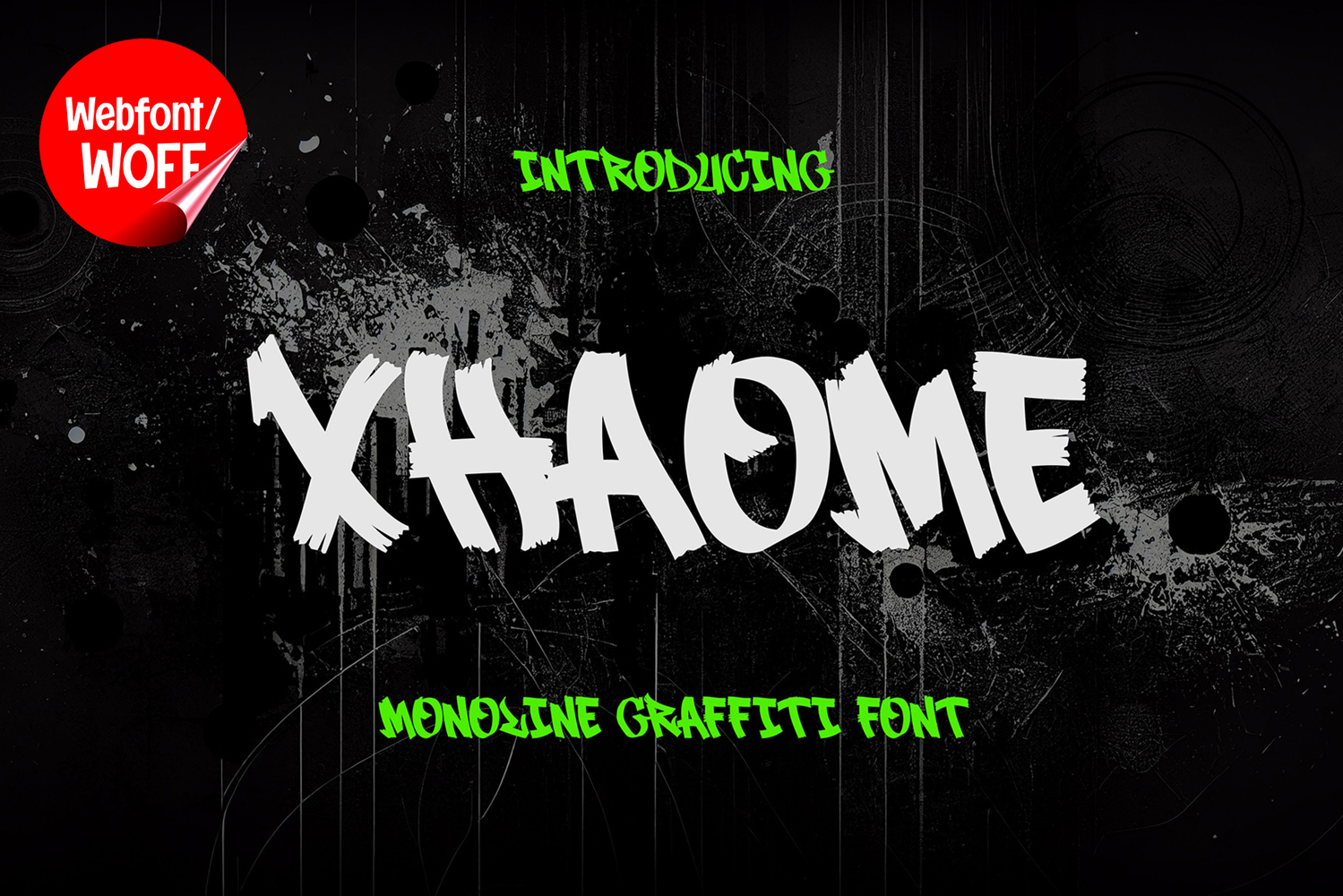
Xhaome | Hand Brush Graffiti Webfont for Urban Websites
Xhaome is a hand brush graffiti webfont designed to bring bold strokes and expressive urban energy into modern website design. Inspired by hand-painted graffiti and brush lettering, this font features dynamic strokes with natural variations that create a raw and artistic visual impact. It is an ideal choice for projects that require a strong, creative, and street-inspired typographic style.
Xhaome features a complete set of uppercase characters designed with bold brush strokes and natural flow. Each letter reflects the movement of a brush, creating an organic and energetic appearance. These expressive forms are perfect for headlines, banners, hero sections, and featured content where strong visual impact is needed. The brush style adds texture and depth, making designs feel more dynamic and engaging.
In addition to letters, the font includes numbers and punctuation, allowing for flexible usage across various parts of a website. It works well for promotional content, event details, pricing displays, and navigation highlights. Each character maintains a consistent brush graffiti style, ensuring a cohesive and unified design throughout the layout.
With multilingual support, Xhaome includes a wide range of accented characters, making it suitable for international websites and global audiences. This allows content to be displayed clearly across different languages while preserving the expressive brush aesthetic.
The hand brush graffiti style of Xhaome makes it especially suitable for urban-themed websites, streetwear brands, music platforms, event promotions, and creative portfolios. Its bold and textured strokes create a strong visual identity that stands out in modern digital spaces. The natural brush movement adds a sense of authenticity and artistic expression.
Despite its expressive and textured design, Xhaome is built with readability in mind. The spacing and proportions are carefully balanced to ensure clarity, especially in display sizes. This makes it effective for impactful headings and short text elements where both style and legibility are important.
Xhaome is a webfont that blends hand brush artistry with modern digital functionality. Its bold strokes, organic shapes, and graffiti-inspired style create a distinctive typographic presence that enhances website design. For projects that require a strong artistic feel with urban influence, Xhaome provides a powerful and visually engaging solution.